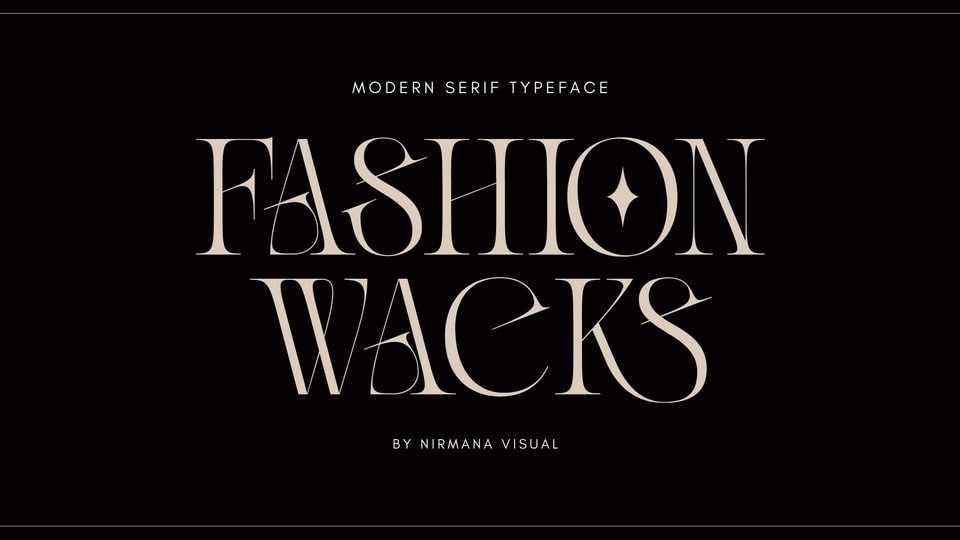
Download Fashion Wacks font, a contemporary serif typeface inspired by Art Nouveau era. Fashion Wacks font offers beautiful typographic harmony for a diversity of design projects, including logos and branding, social media posts, advertisements and product designs.